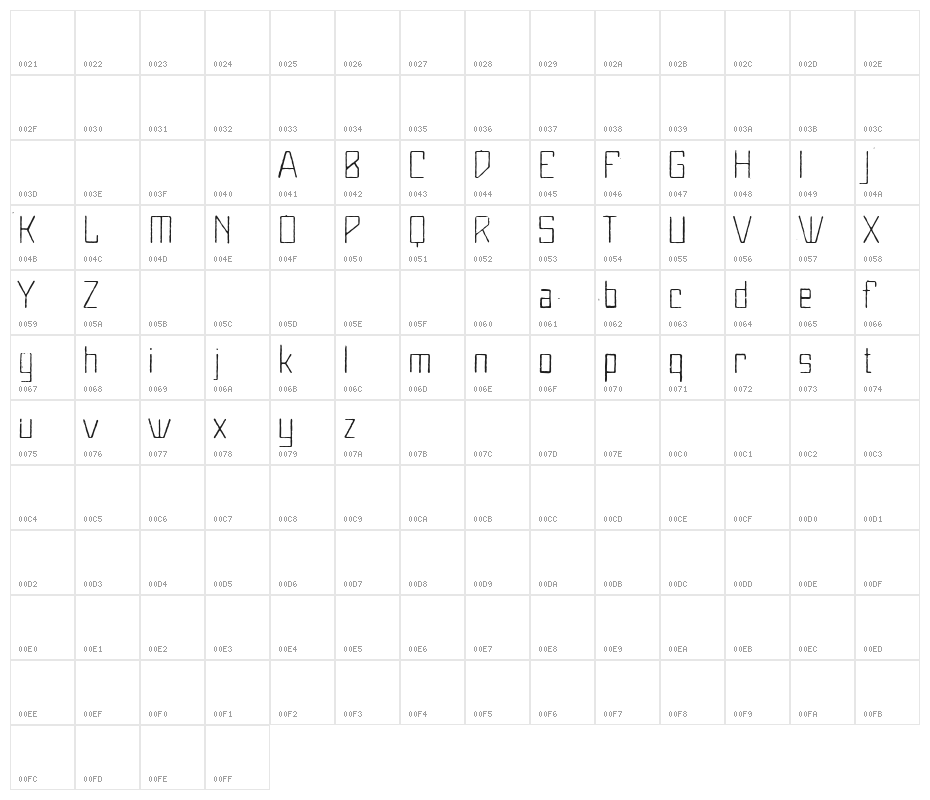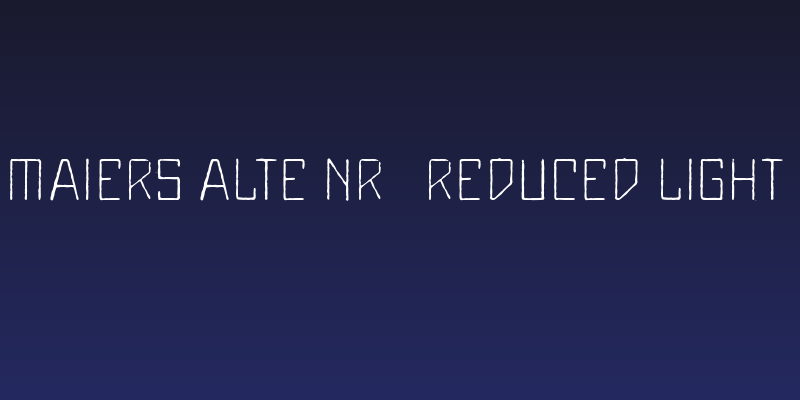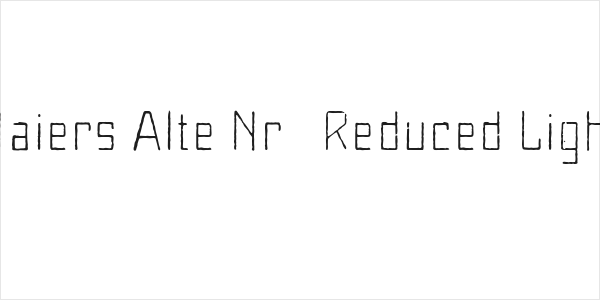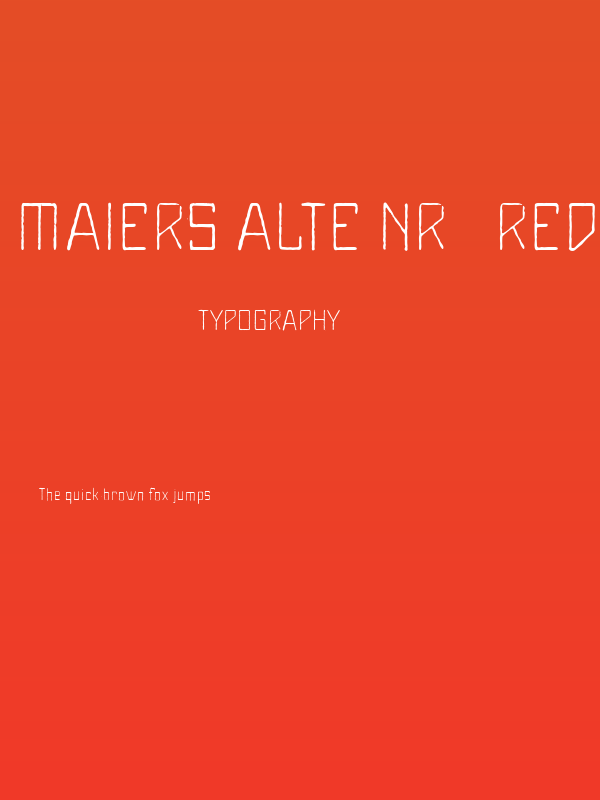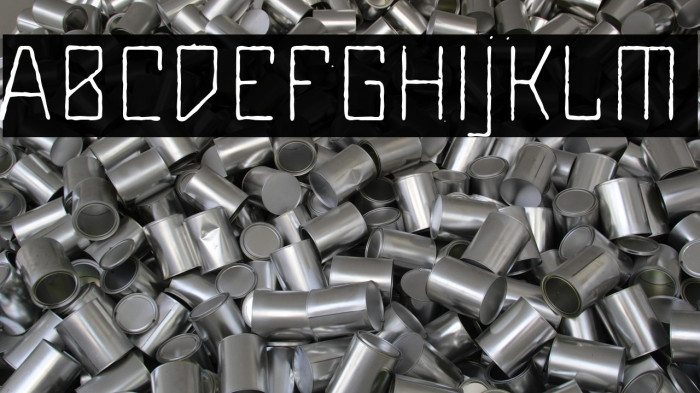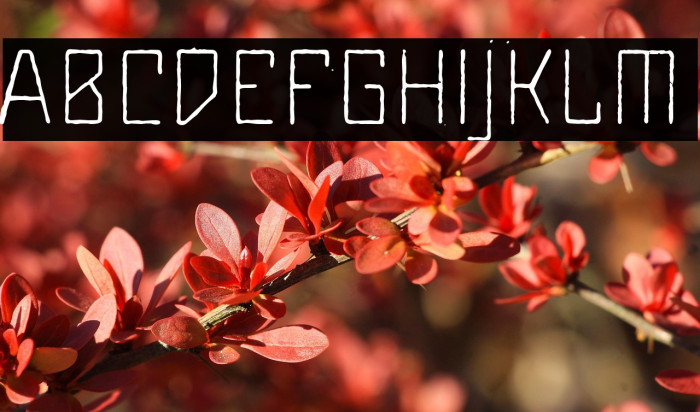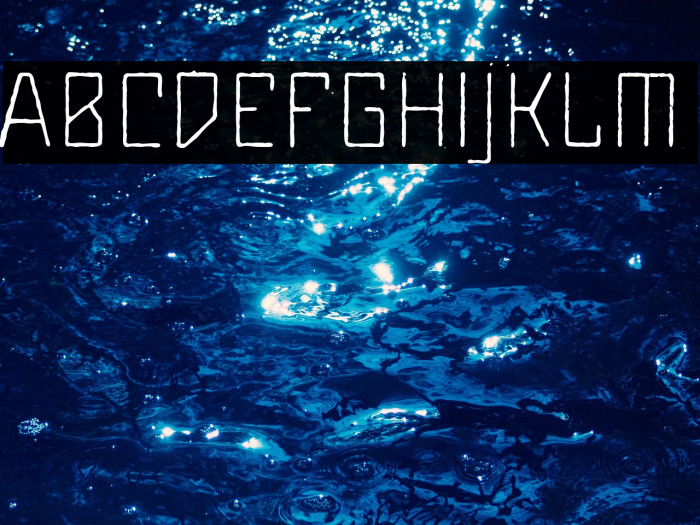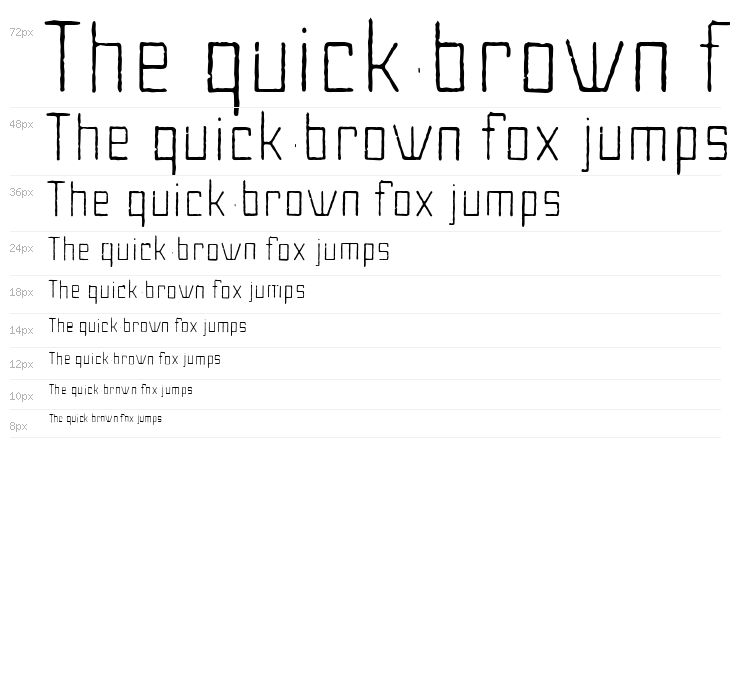
Maiers Alte Nr.8 Reduced Light Font
Maiers Alte Nr.8 Reduced Light Description
This font features a unique, hand-drawn style with a slightly irregular and organic feel. The characters are tall and narrow, with a consistent stroke width that gives it a monoline appearance. The edges are slightly rough, adding a rustic charm to the overall design. The uppercase and lowercase letters maintain a uniform height, creating a cohesive look. The numbers and special characters follow the same design principles, ensuring consistency across all glyphs. This font's distinctive style makes it suitable for projects that require a touch of individuality and creativity.
| Overall Style | Rustic |
| Proposed Projects | Ideal for creative projects like posters, invitations, and branding that require a unique and personal touch. |